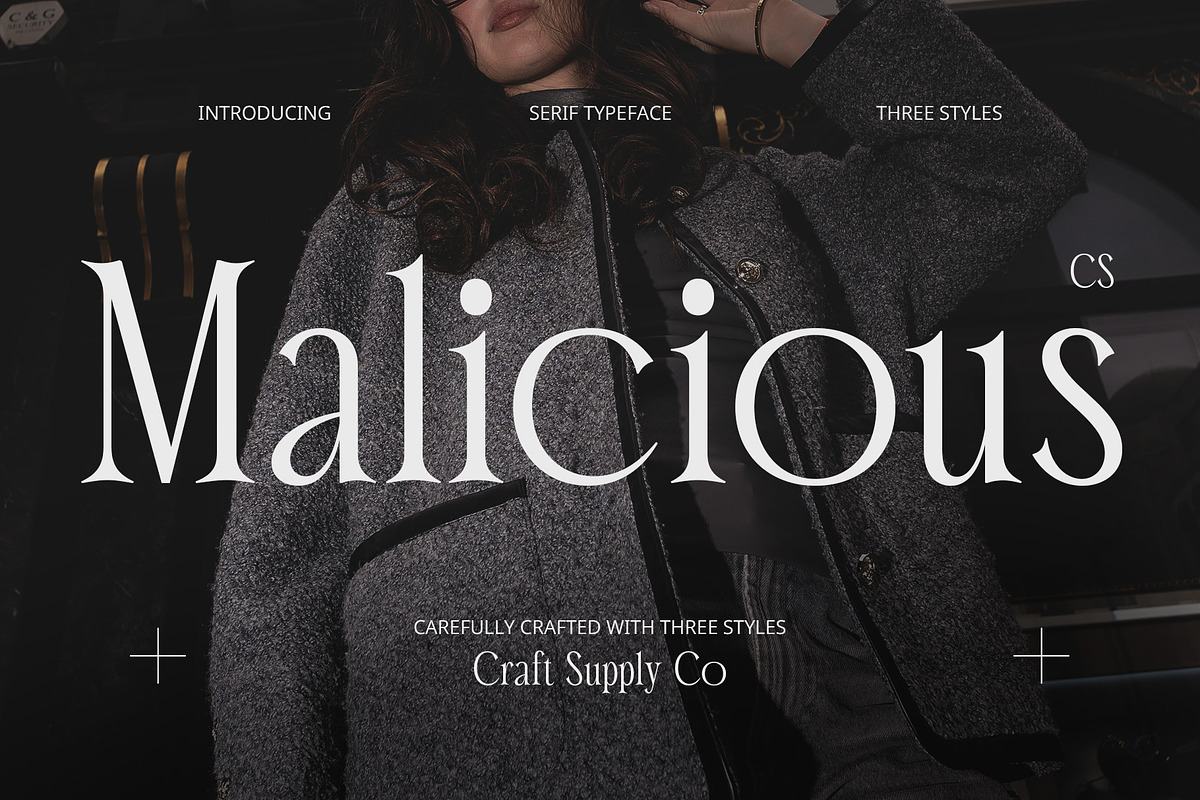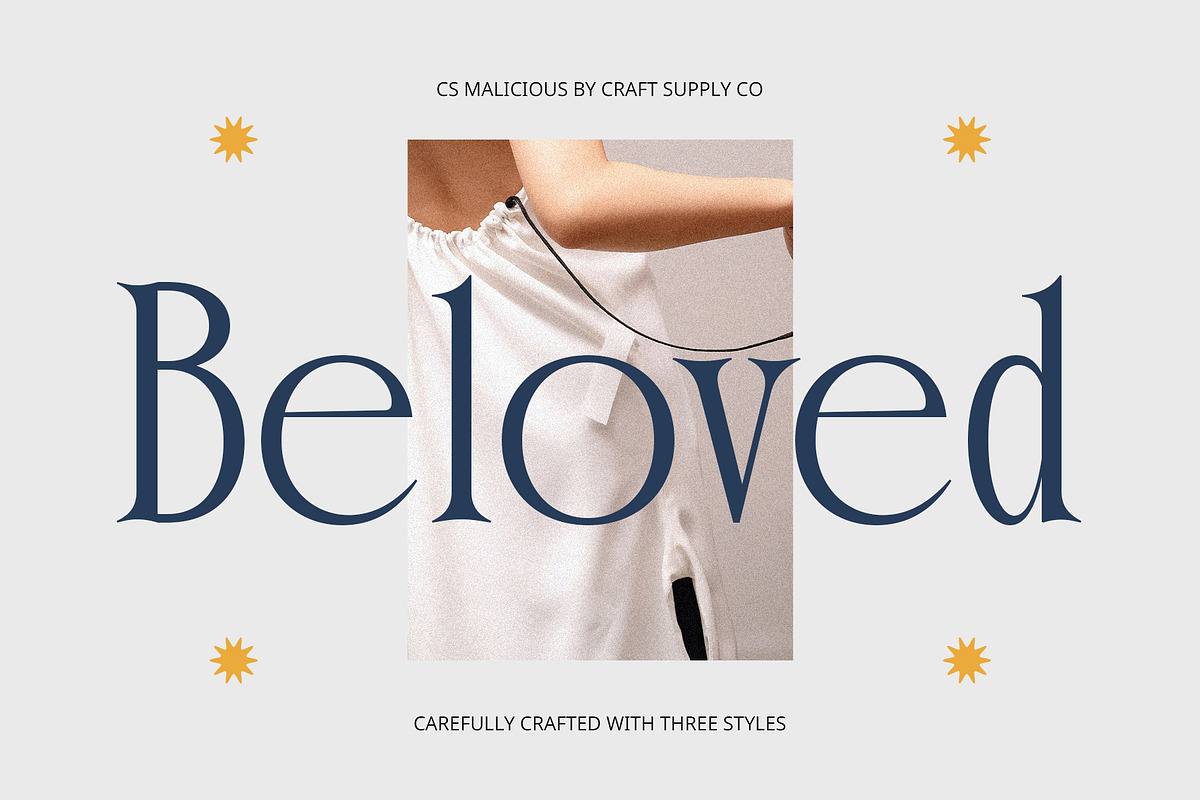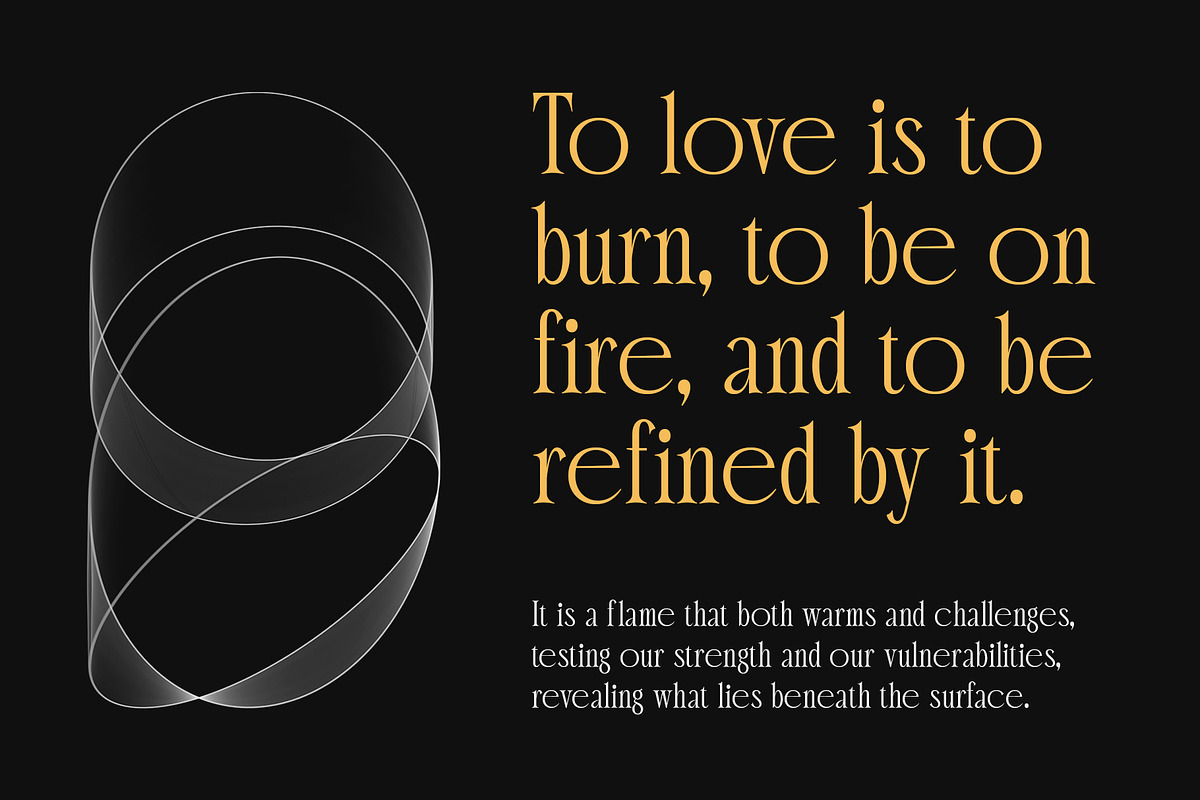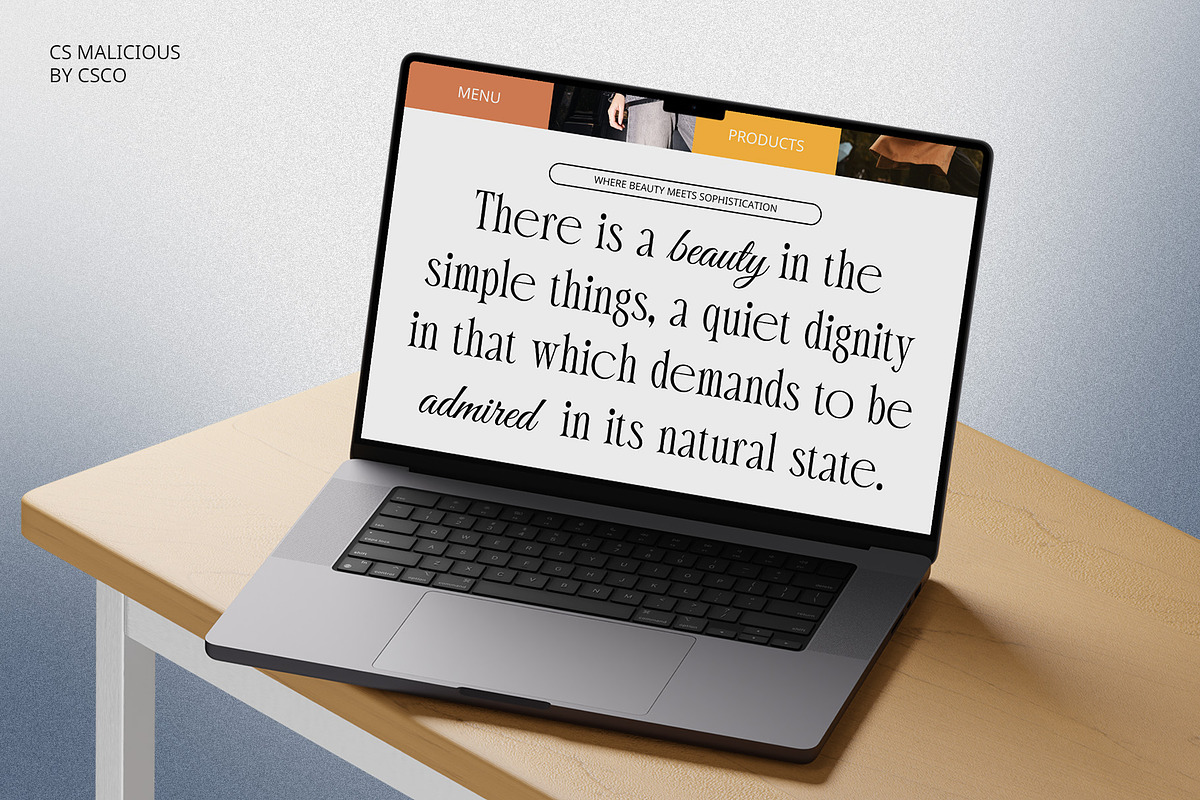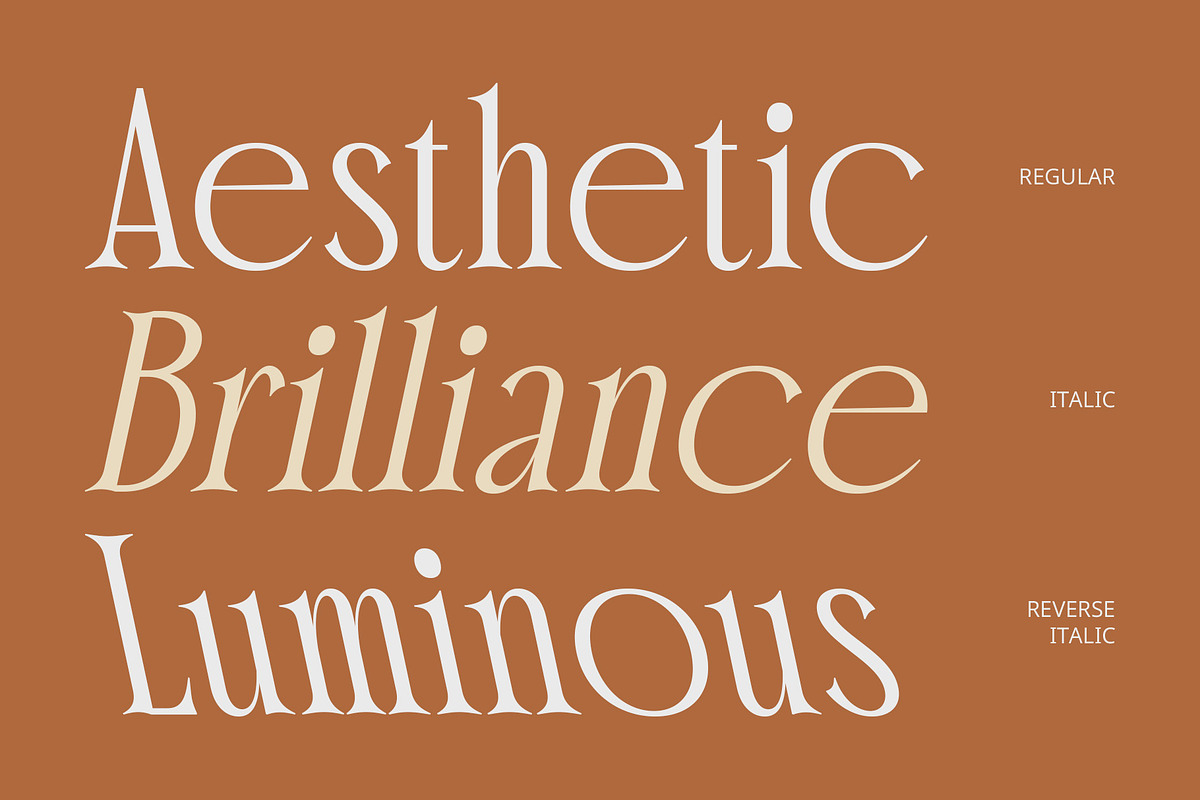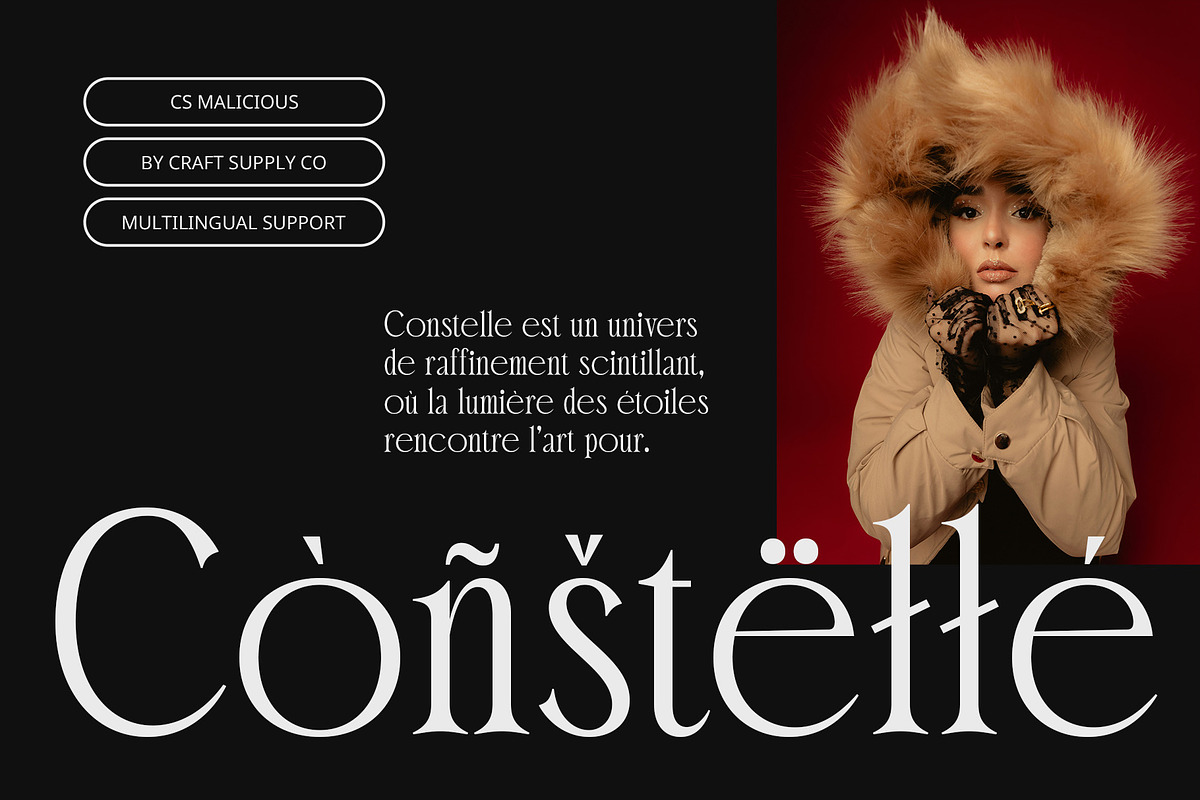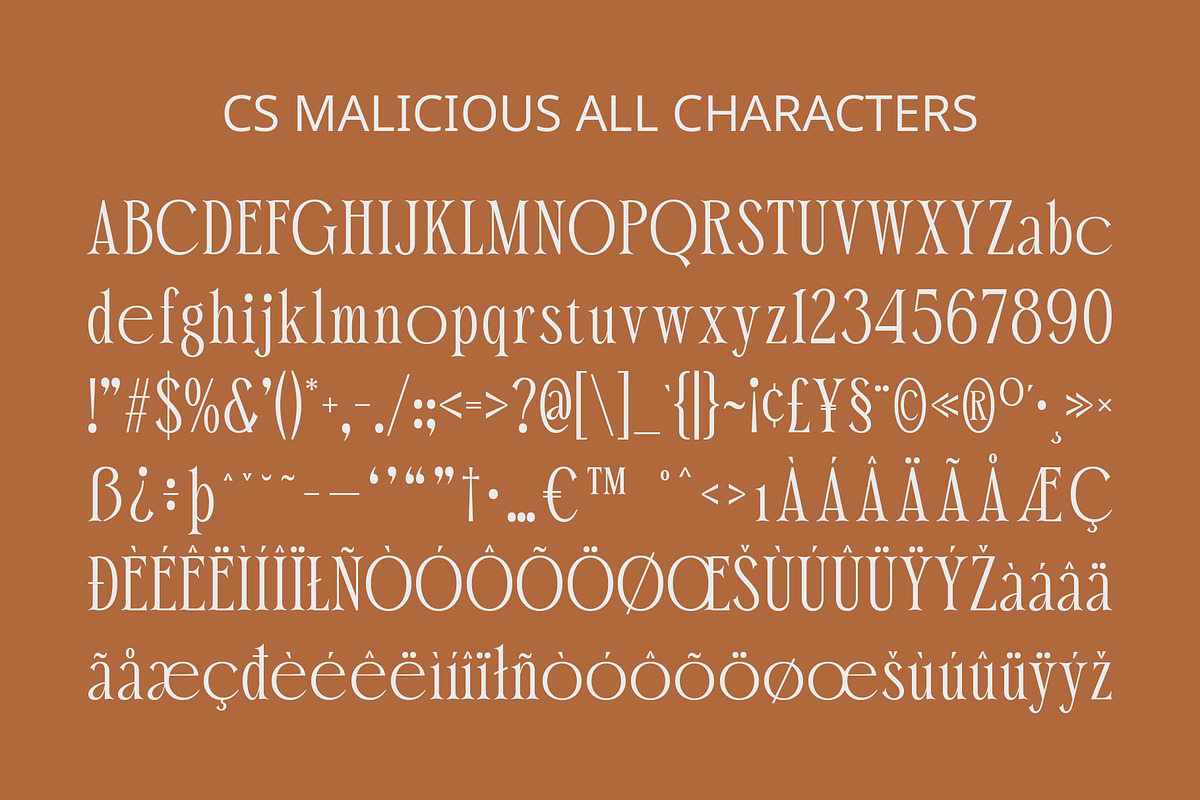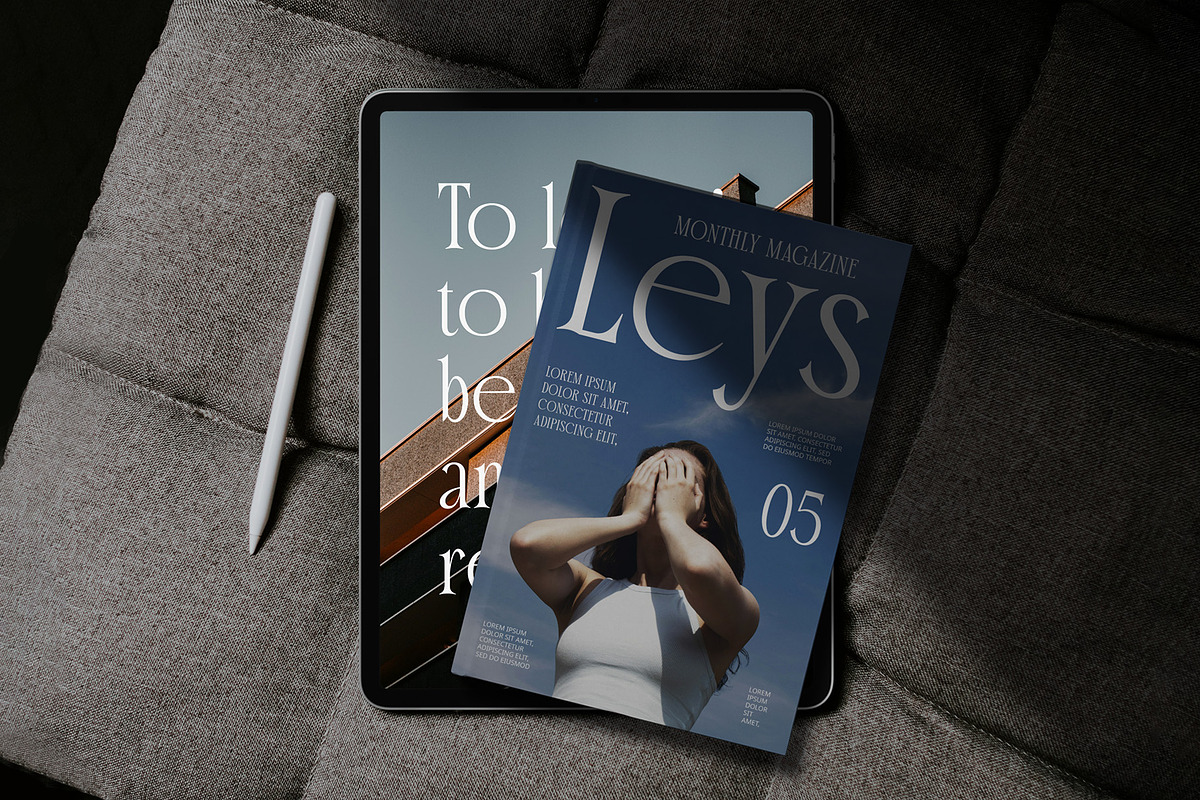
CS Malicious – Elegant Font
CS Malicious – Elegant Font: Where Sophistication Meets Simplicity
Modern Serif with a Minimalist Touch CS Malicious is a refined modern serif font that embodies elegance and precision. Featuring long, graceful serifs and a clean, minimalist design, it offers a smooth and polished appearance. Its balance of sophistication and simplicity makes it a perfect choice for high-end branding and editorial projects.
Slim, Well-Proportioned Characters With its slim letterforms and carefully crafted proportions, CS Malicious radiates luxury and professionalism. Each character is designed for a harmonious flow, enhancing readability while maintaining a strong visual identity. This makes it ideal for premium packaging, fashion branding, and upscale typography.
Aesthetic Elegance for Timeless Appeal CS Malicious delivers an aesthetic charm that blends modern refinement with classic beauty. Its sleek structure and subtle contrast add a touch of timeless grace, making it perfect for magazine layouts, invitations, and artistic projects that require a sophisticated look.
Versatile for High-End Design Applications Whether used in luxury branding, editorial spreads, or elegant promotional materials, CS Malicious adapts effortlessly to various design needs. Its exquisite details and understated elegance ensure that your typography remains stylish, distinguished, and impactful.
- CS Malicious Regular
- CS Malicious Italic
- CS Malicious Reverse Italic